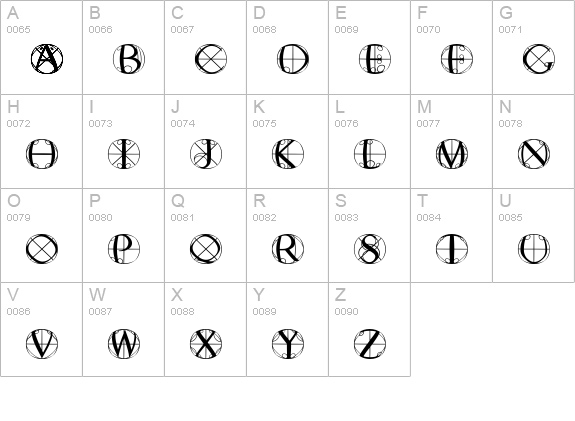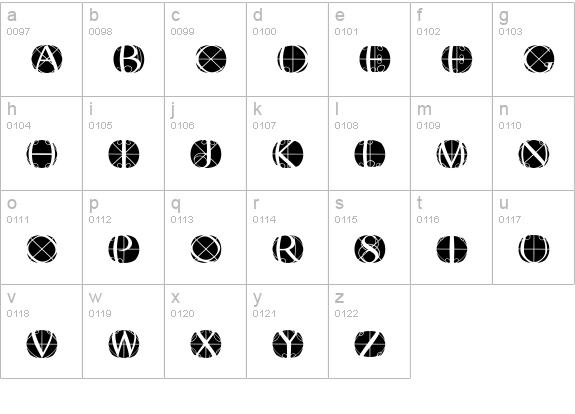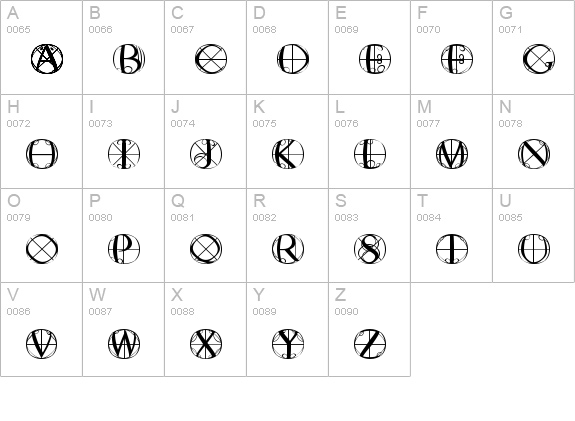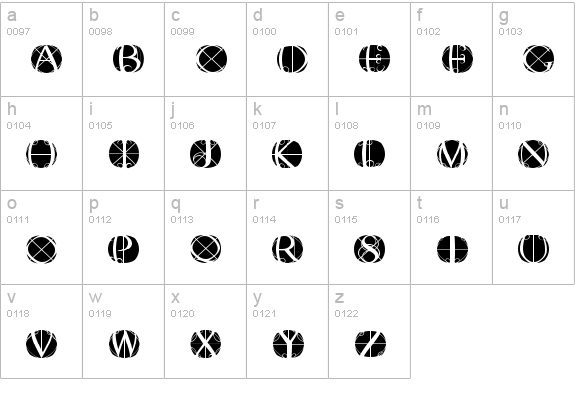
FisheyeButtonsTwo Font Details
FisheyeButtonsTwo font is a unique and playful typeface that adds a touch of whimsy to any design. Its rounded shapes and quirky details make it perfect for projects that call for a fun and friendly aesthetic. This font is free to download at FontsMarket.com, making it accessible to all designers looking to add a creative flair to their work. With FisheyeButtonsTwo font, you can create eye-catching designs that stand out from the crowd and make a lasting impression. Let your creativity run wild with this charming and delightful font!